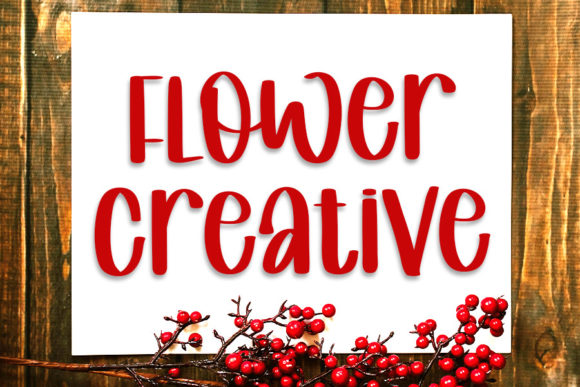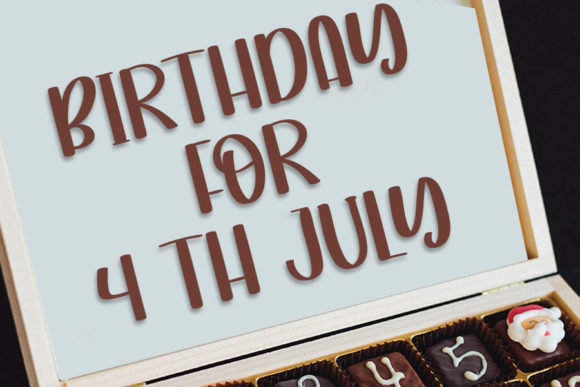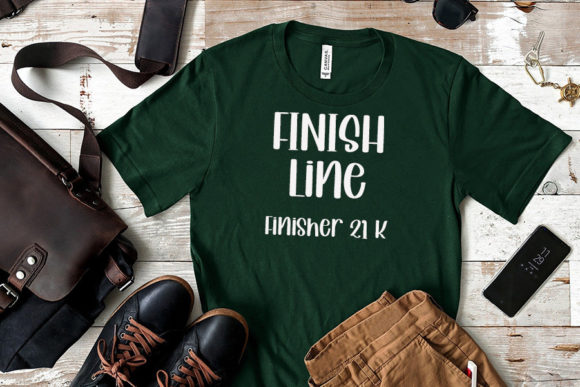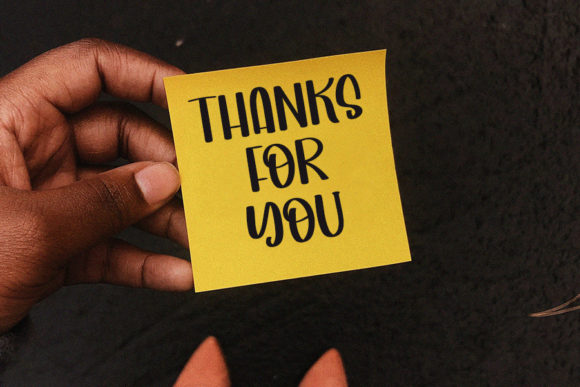
Get Ready to Fall in Love with the California Font
Have you ever sat at your desk, staring at a blank page, and suddenly felt the spark of creativity? The world around you comes alive, and you’re filled with ideas for a new project. For designers, this moment is what makes all the hard work worth it – and the right font can be the key to unlocking that creative potential.
That’s where the California Font comes in – a sweet, all-round, and flexible handwritten font that’s perfect for adding a touch of warmth and romance to your projects. With its endless variations, you’ll be able to explore new ideas and bring your vision to life in a way that’s uniquely yours. Whether you’re working on a branding project, creating a wedding invitation, or designing a cookbook, the California Font is sure to be your new favorite companion.
California Font Key Features
- Font Family: California is a sans-serif font family designed by Tobias Frere-Jones and Jonathan Hoefler.
- Font Size and Style: California comes in 8 weights (Thin, Light, Regular, Book, Medium, Demi, Bold, Black) and 3 widths (Normal, Condensed, Extended).
- Resolution and Scalability: California is designed to be highly legible at small sizes and can be scaled to large sizes without losing clarity, making it ideal for digital and print applications.
- Unique Characteristics: California features a distinctive, friendly, and approachable design aesthetic with subtle flair and rounded edges, making it well-suited for a wide range of applications, including branding, advertising, and editorial design.
- Font Metrics: California has a x-height of 0.5, a cap height of 0.75, and a total height of 1.0, making it highly readable and versatile.
California Font Review
Overall, the California Font is a decent addition to any designer’s toolkit. It has a certain laid-back vibe that works well for projects that need a relaxed, casual feel ✨. The font’s rounded edges and friendly curves give it a welcoming appearance that’s perfect for branding and signage.
- The font’s flexibility is a major plus. It comes in a range of weights and styles, making it easy to use in different contexts.
- The font’s readability is also a strong point. Even at smaller sizes, the letters remain clear and legible.
- California Font is highly versatile and can be used for various applications, including logos, headings, and body text.
However, there are some limitations to consider ⚠️. The font’s casual vibe can sometimes come across as lazy or unprofessional, especially in more formal settings. Additionally, the font’s rounded edges can make it difficult to read at very small sizes.
Overall, I’d say the California Font is a solid choice for designers who need a friendly, approachable font for their projects. While it may not be the best fit for every situation, it’s definitely worth considering for the right project.
Tips for Getting the Most Out of California Font
For the most effective use of California Font, consider the following tips:
* Use it for headings and titles to add a touch of elegance and sophistication.
* Pair it with a clean and simple font for body text to create a balanced design.
* Experiment with different font sizes and colors to create visual interest.
California Font is commonly used in:
* Wedding invitations and stationery
* Luxury brand marketing materials
* High-end event designs
* Fashion and beauty product packaging
Alternatives to California Font
Great Vibes is a beautiful script font that’s perfect for adding a touch of elegance to your designs. It’s great for use in logos, invitations, and other creative projects where you want to add a sense of sophistication.
Compared to California Font, Great Vibes has a more refined and polished look, making it ideal for high-end designs. While California Font is more playful and casual, Great Vibes is better suited for formal or luxury brands.